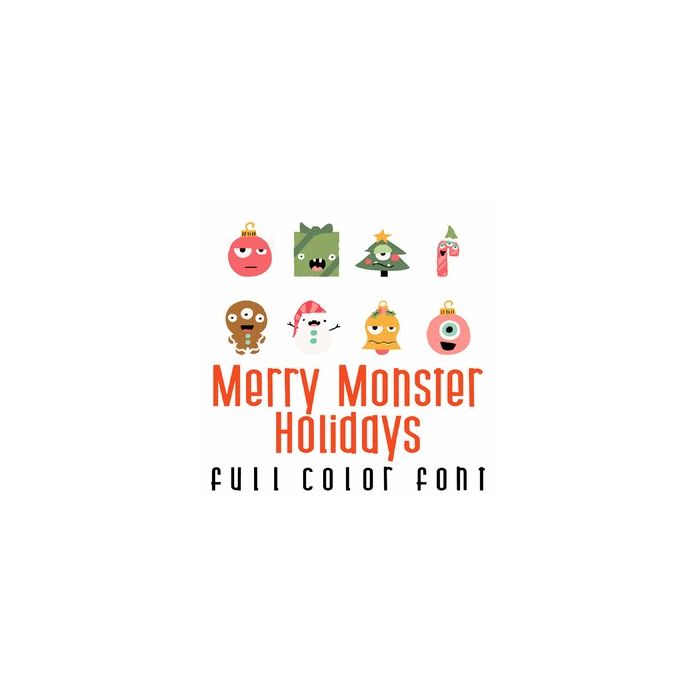
Merry Monsters Holiday Full Color Font
A full-color font stores svg data inside an Open Type font file. This font will look black if not used in a program like Silhouette Studio which is compatible. Images can be pulled apart with some vector programs like Illustrator and cut with your cutting machine. This fun full-color doodlebat font features 26 adorable Christmas monsters perfect for cards, crafts, gifts, scrapbook pages, planner stickers, and more!